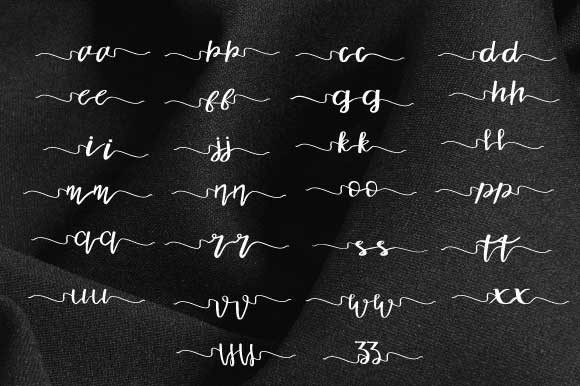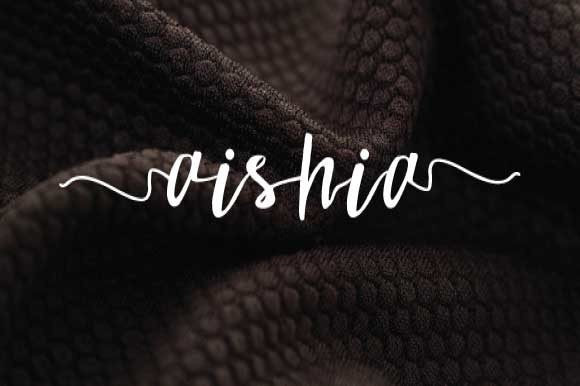
Aishia Script Font
This an effortless handwritten font. This font has a feminine aesthetic, with the perfect amount of attitude – casual, relaxed, and stylish. Introducing Aishia Font. It’s designed and shared by goodigital. It’s a sweet and simple script that will turn any design idea into a true standout! It’s works perfectly for logos, display, product branding, wedding invitation card, stationary, packaging, clothing, flyer, apparel, magazines, brochures, lable, posters, badges, etc.